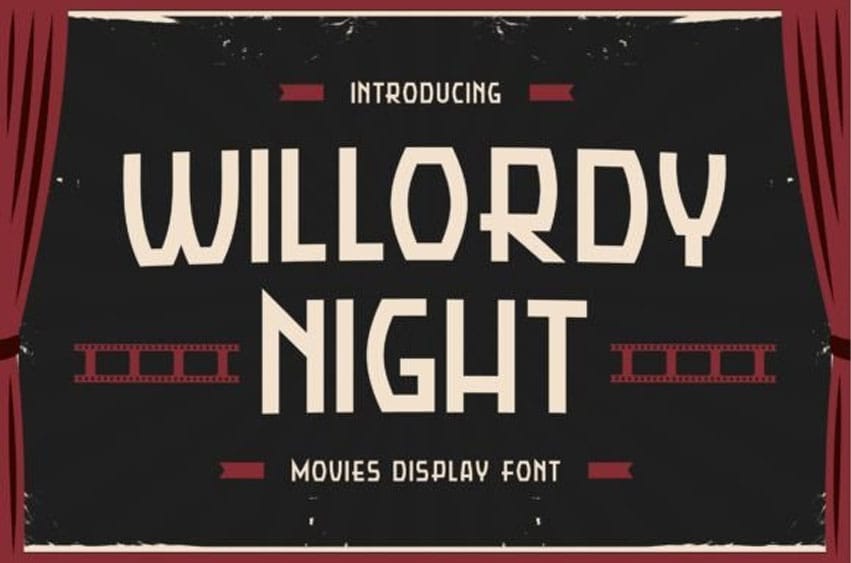
Willordy Night Font is a Movie font that will immediately take you into an adventure vibe. This font will be the ideal choice for any cinema, game, or theater-themed design you wish to develop.